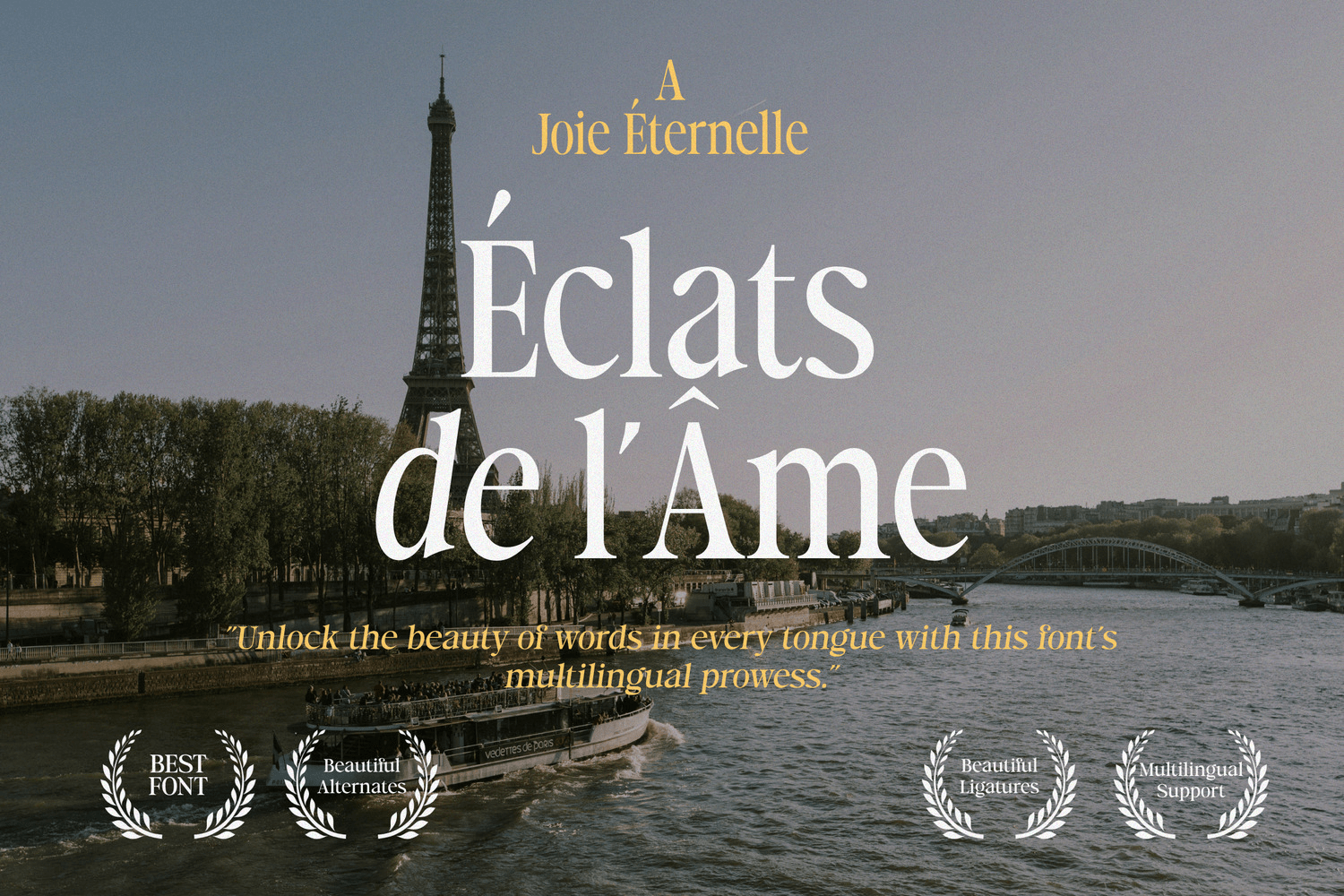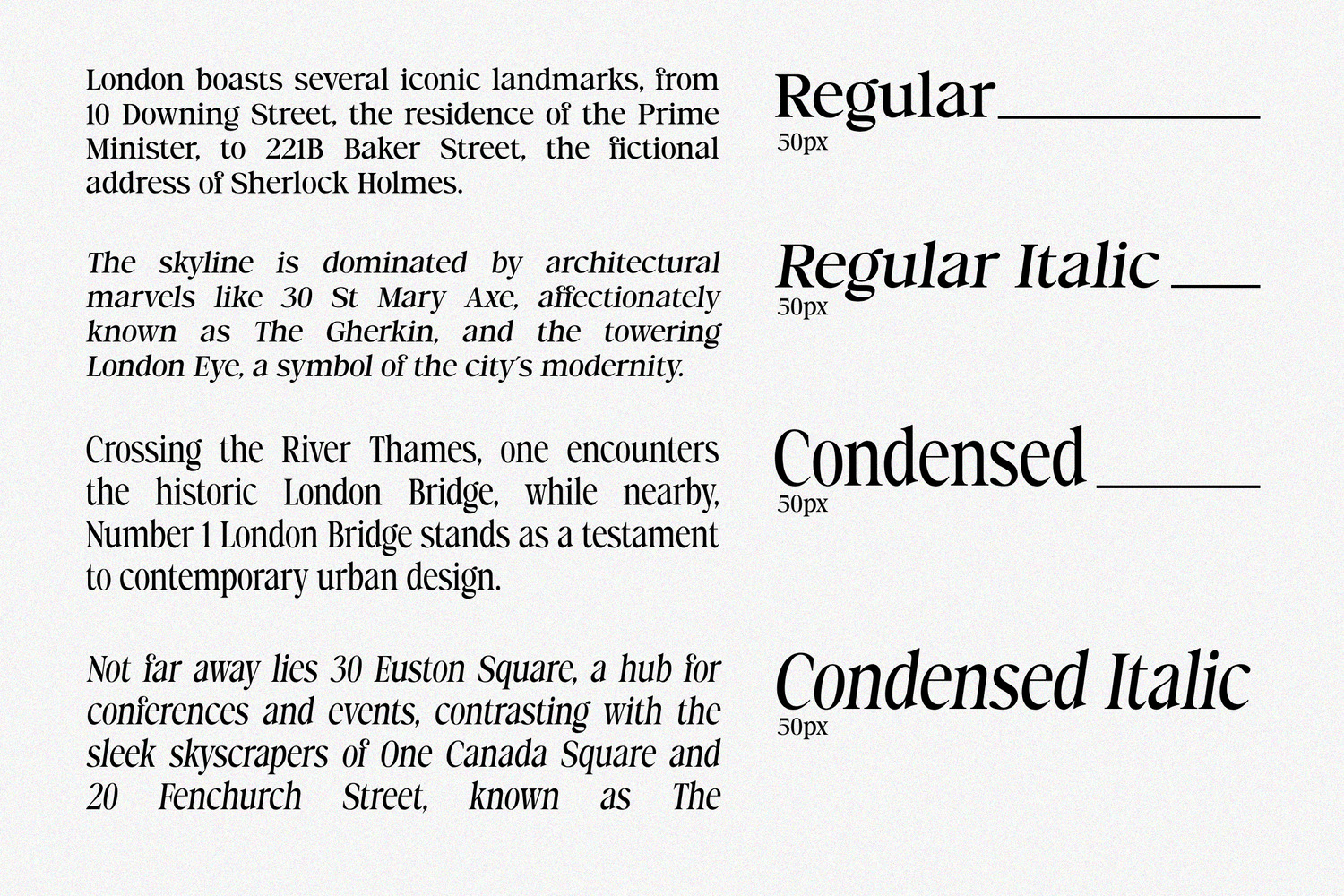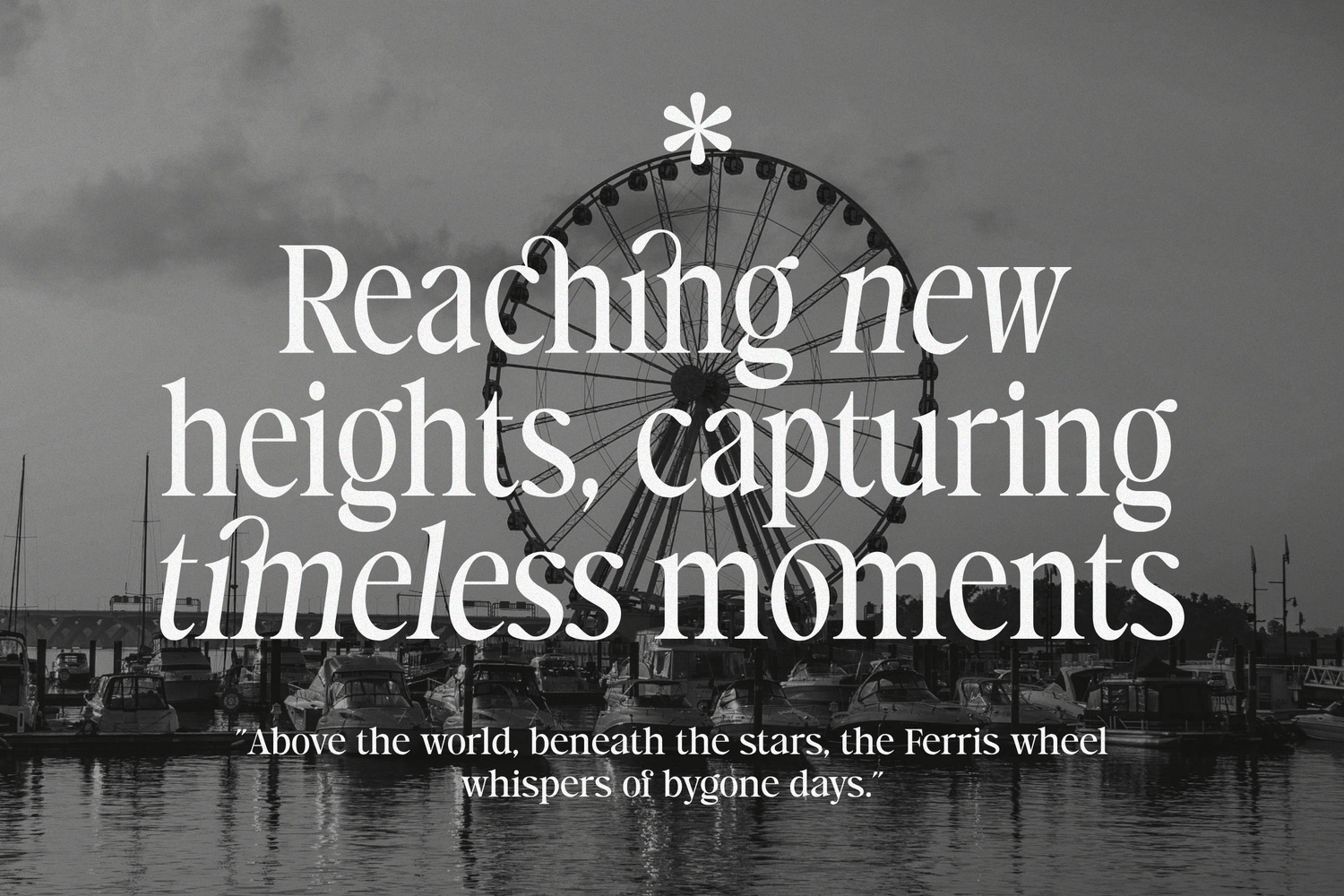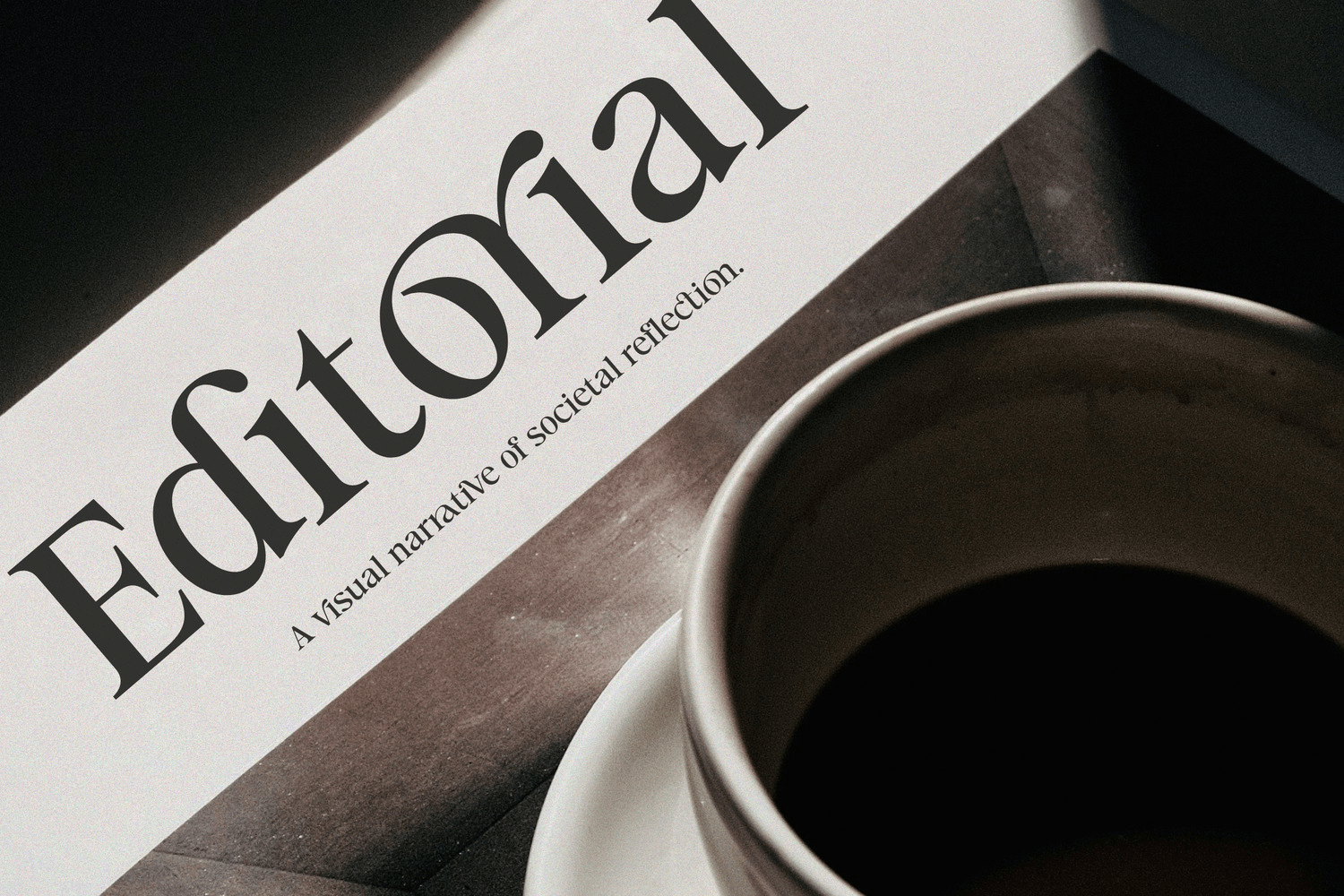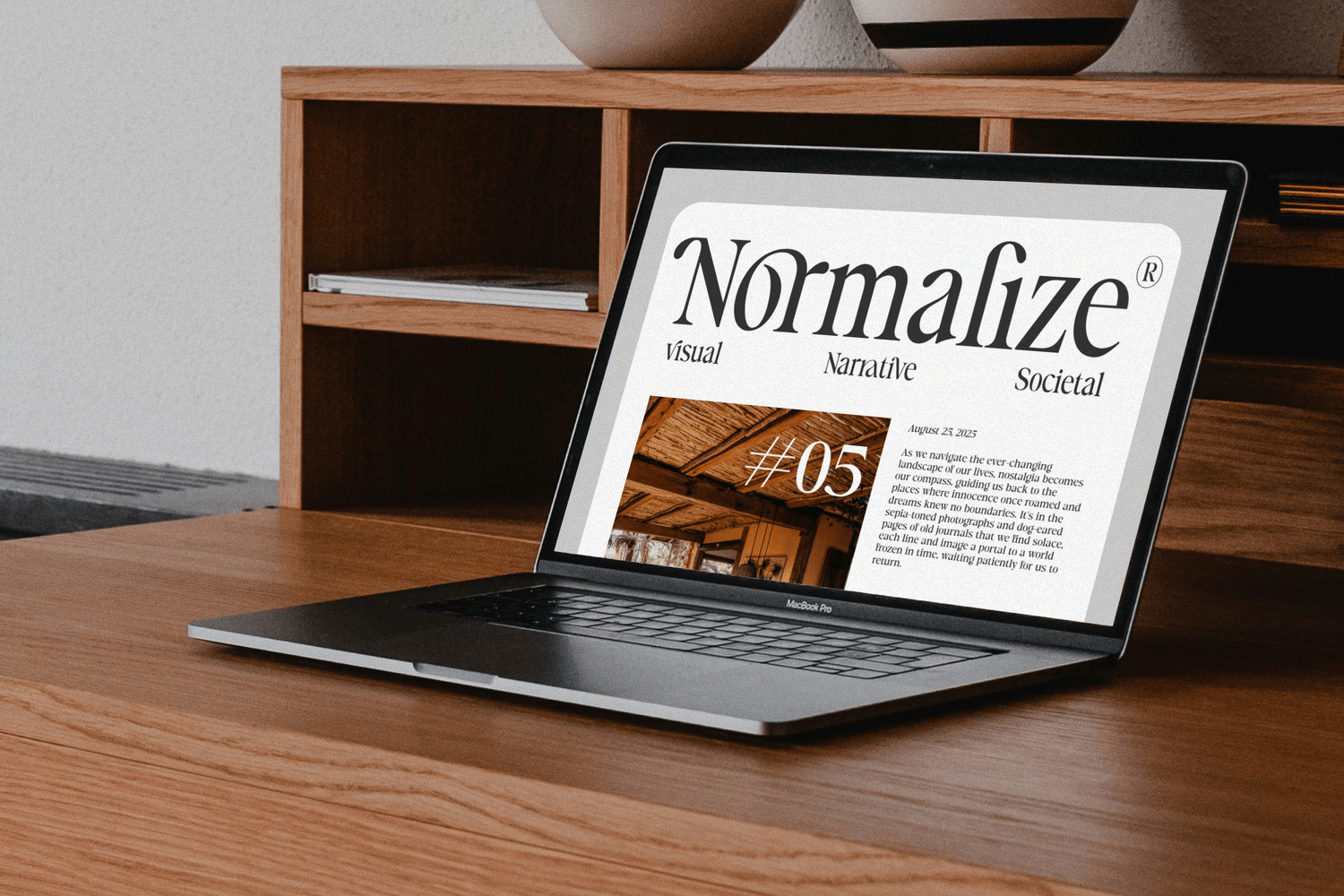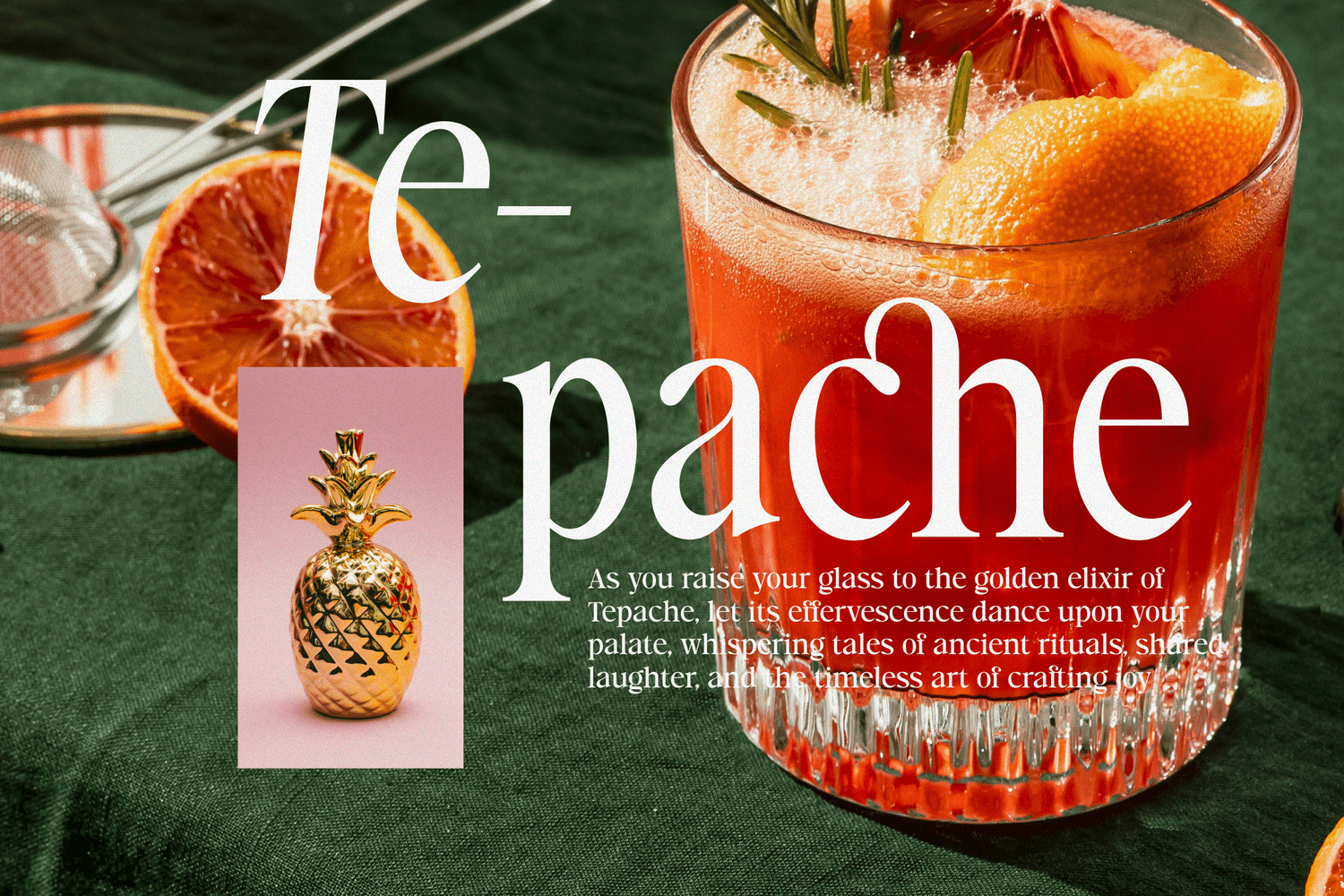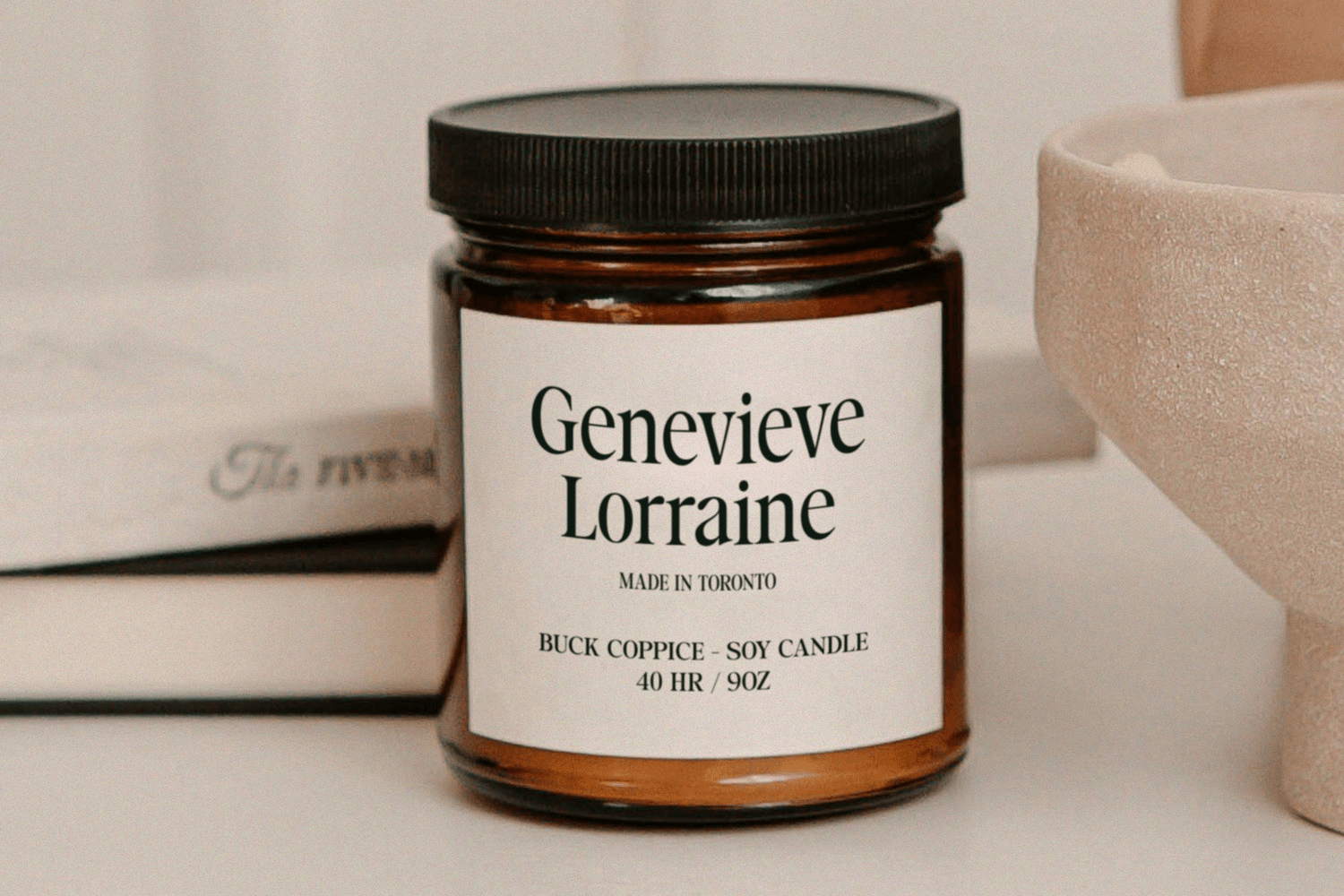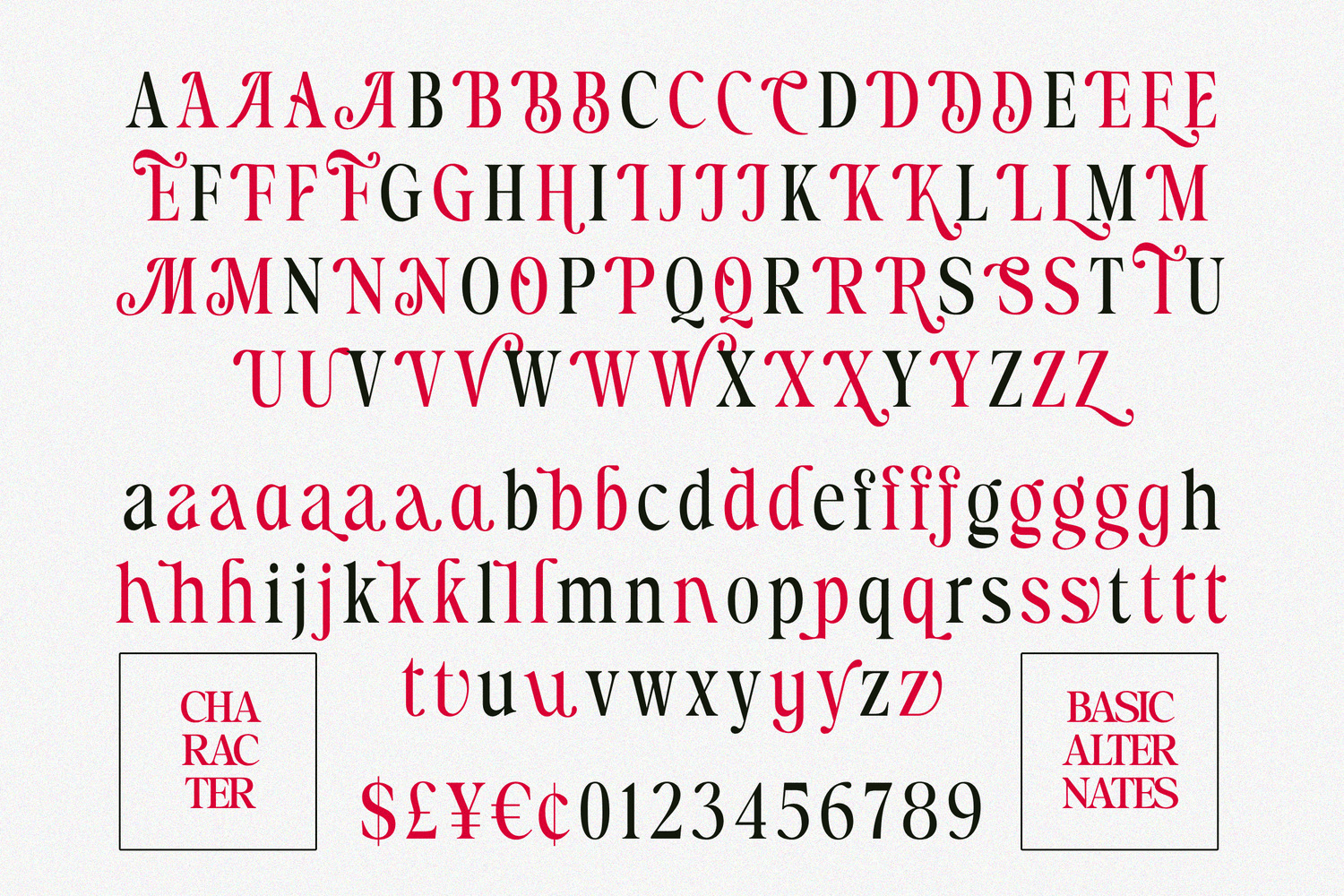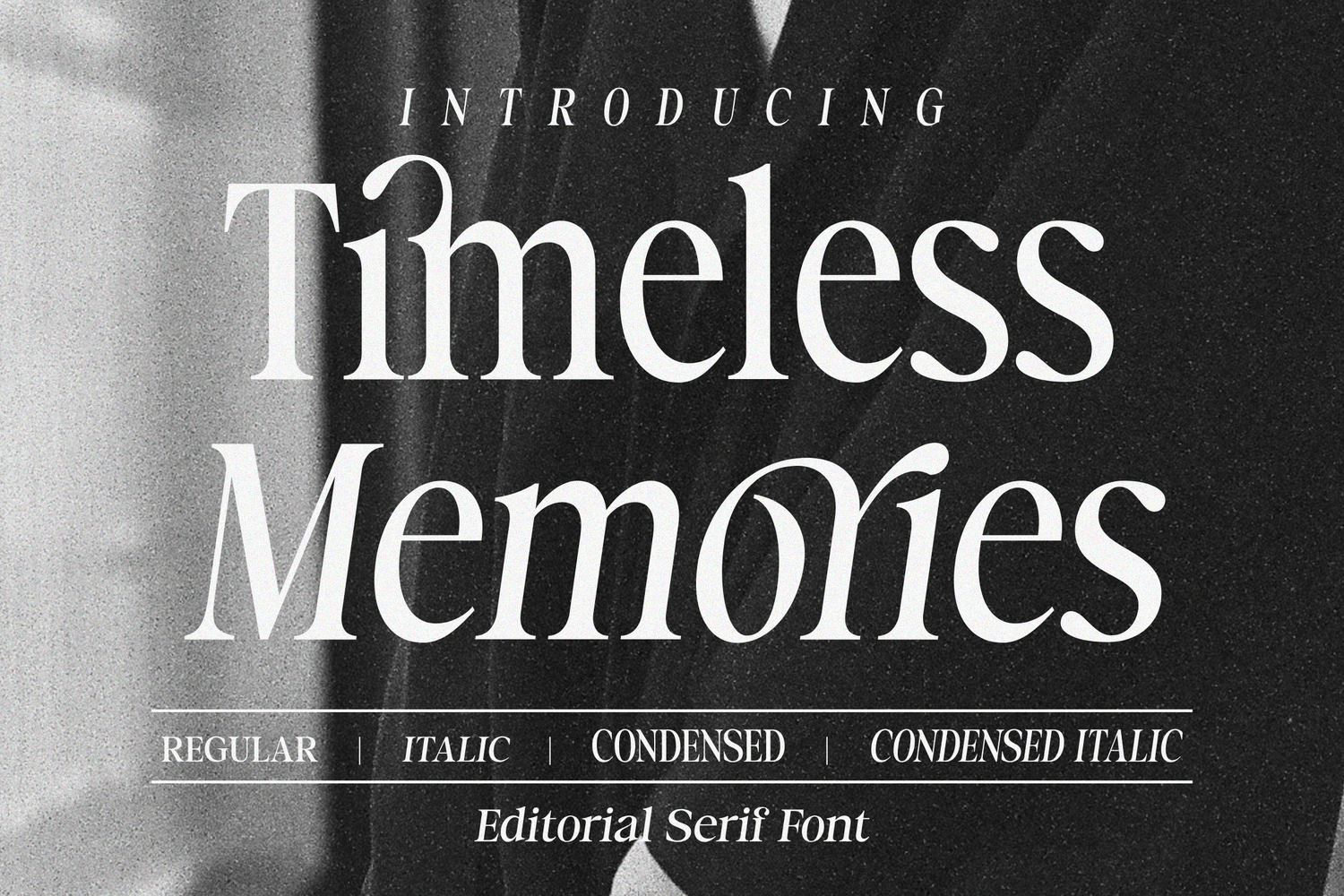
Timeless Memories
Timeless Memories – Classic Modern Serif Font is a stylish font that has a modern Classic look. Comes with alternatives and binders, helps to create amazing logos, quotes, posts, blog posts. branding projects, magazine imagery, wedding invitations and…